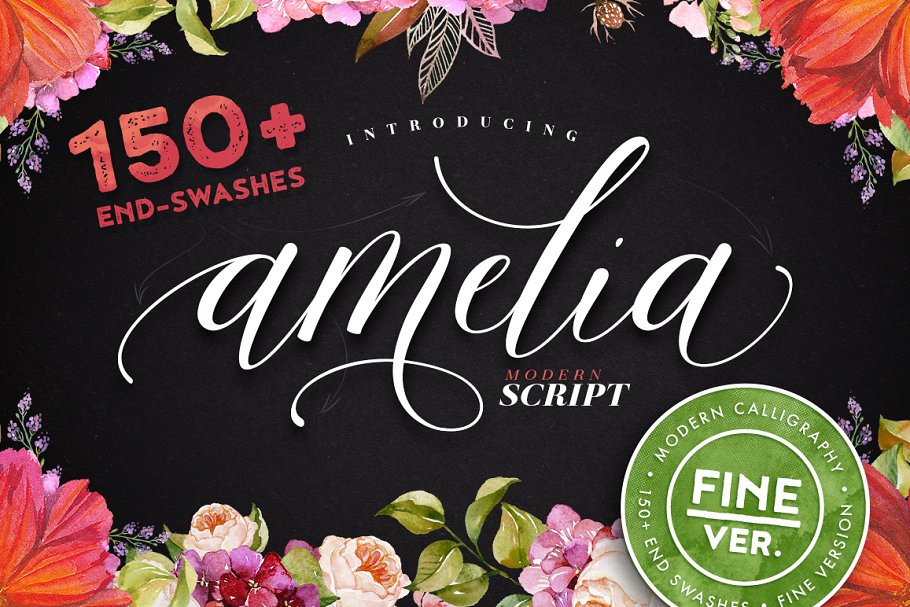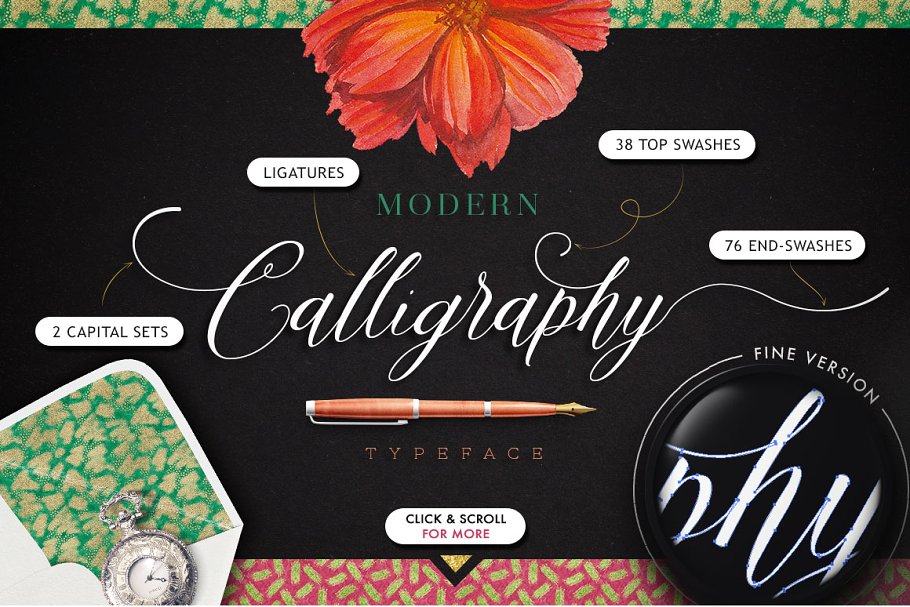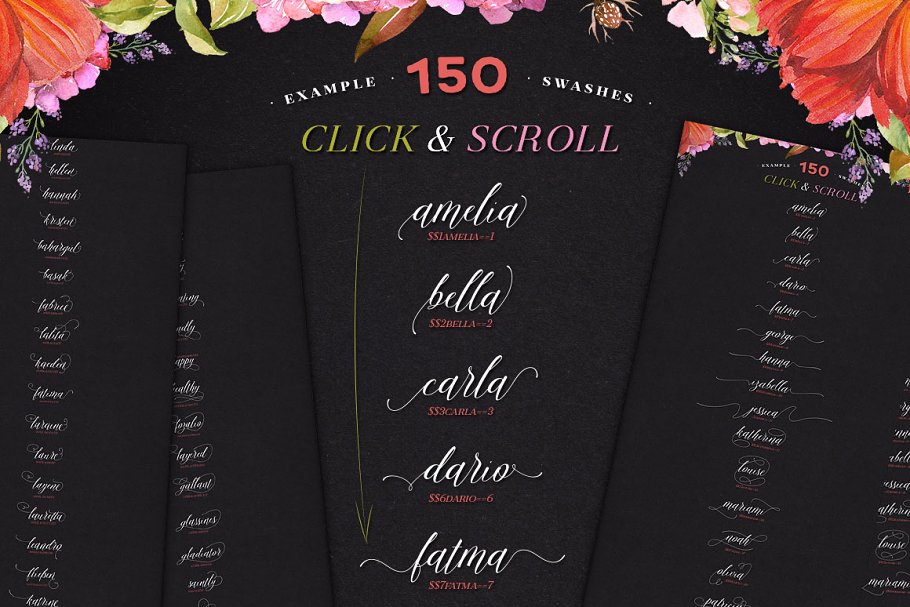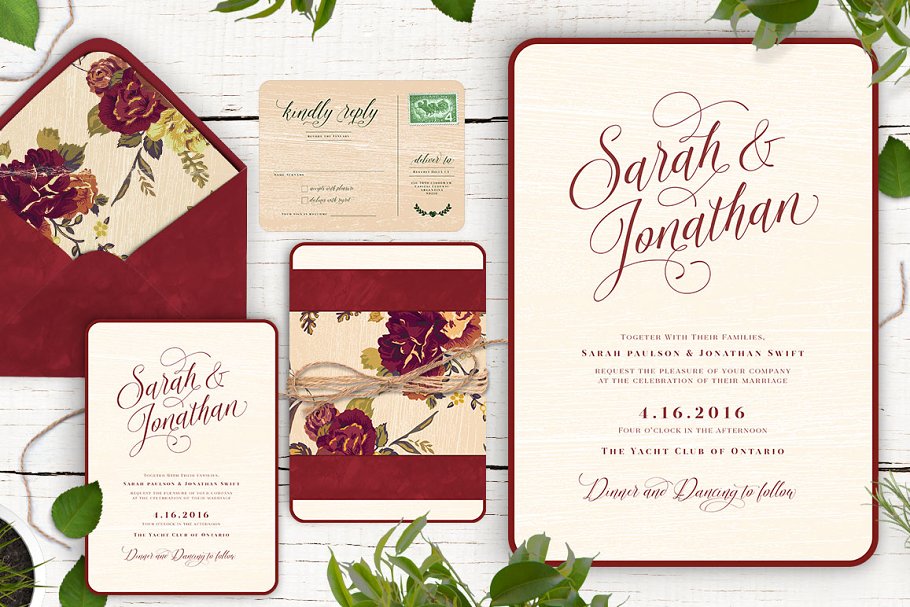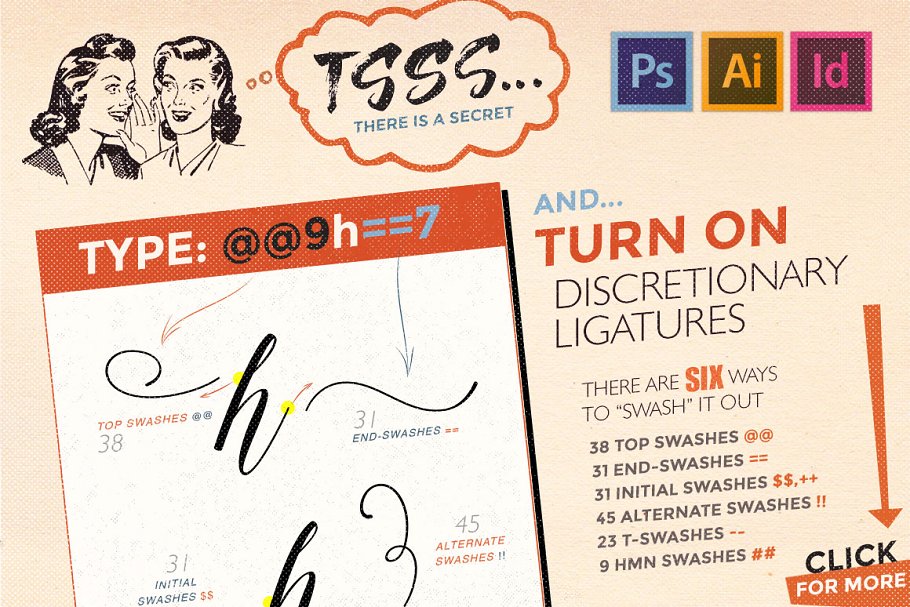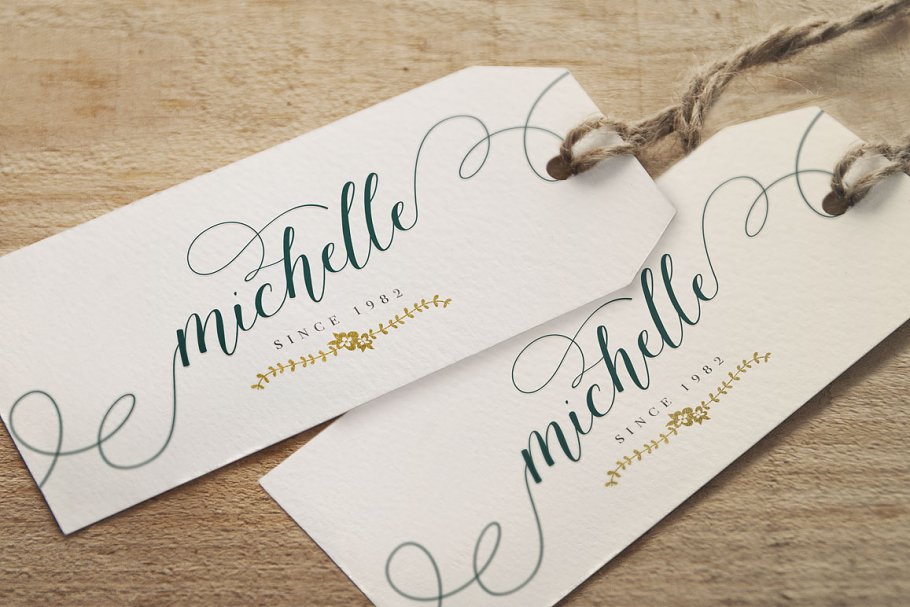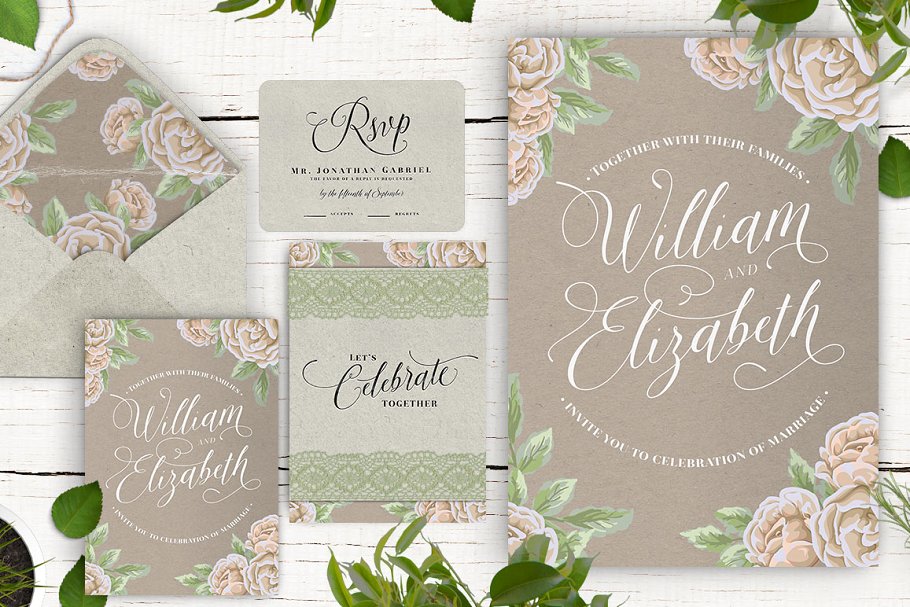
Amelia Script Fine version Font Family Free Download
Included to❗ BIG BUNDLE❗ https://crmrkt, com/Rr0AXAmelia Script is revolutionary new modern calligraphy typeface with more then 150 end-swashes that perfectly connects each single letter, It supports opentype features, It is smart and it is working in Photoshop without necessary to open glyph panel! You are welcome to use it for various purposes: logo, wedding invitation, headings, signatures, t-shirt, letterhead, signage, labels, posters etc
Be sure to check also draft version: http://crtv, mk/e0RRUAmelia Script supports:Contextual alternatesDiscretionary LigaturesStylistic alternateSwashPUA (private use areas)Compatible with SILHOUETTE & CRICUT DESIGN SPACEI prepared carefully 1465 glyphs, includes multilingual symbols (scroll 2nd screen) https://creativemarket